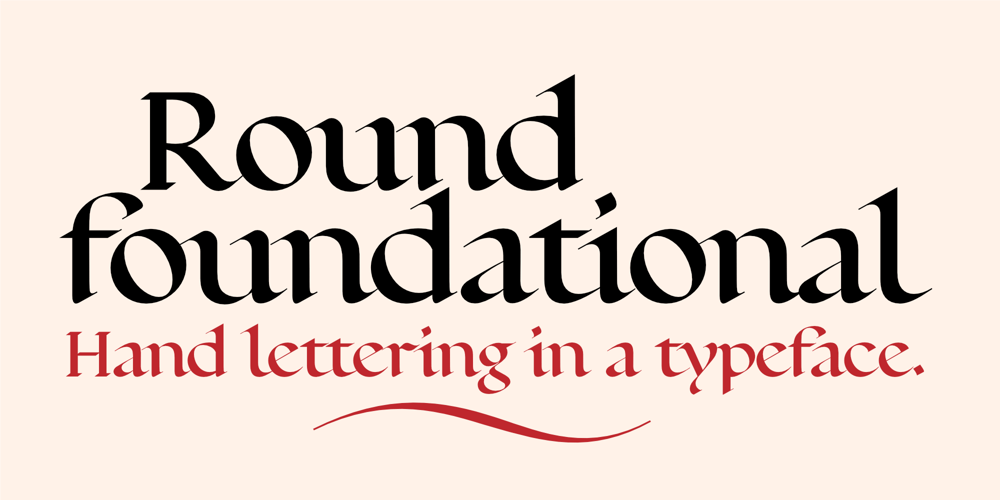
Round Foundational Font Family was designed by Andy Peat and published by Andy Peat. Round Foundational contains 1 styles and family package options. About this font familyRound Foundational is a beautifully drawn hand lettering font made digital and captured in a typeface for anyone to use. It is one of the basic styles of calligraphy that students should learn and is perfect for creating beautiful greetings cards, wedding invitations, certificates and official looking documents.Features1 weight based on a four nib widthMulti language supportLigatures to improve styleCapital spacing to help create original lookAlternative characters that allow customisationTo be able to access alternative fonts, make sure the software you use can support opentype features such as Microsoft Word, Paint, Adobe, Corel draw, Cricut and other applications.Designed and published by Andy Peat.Released August 2022